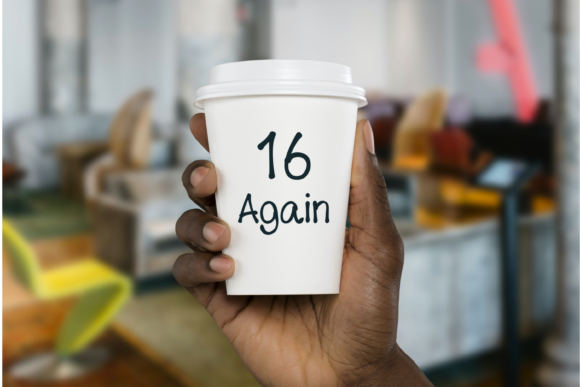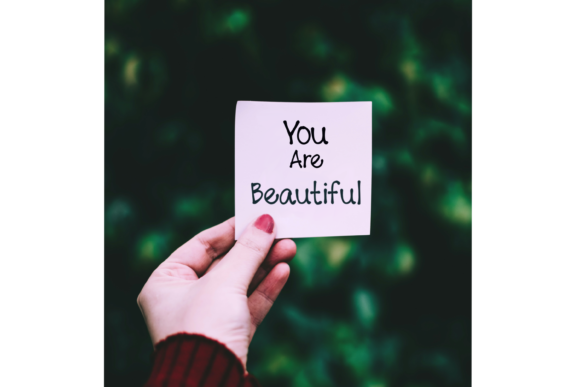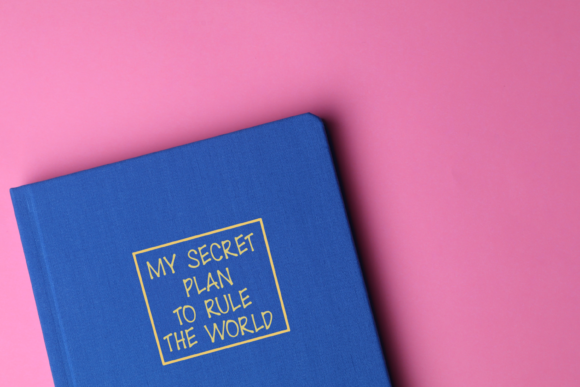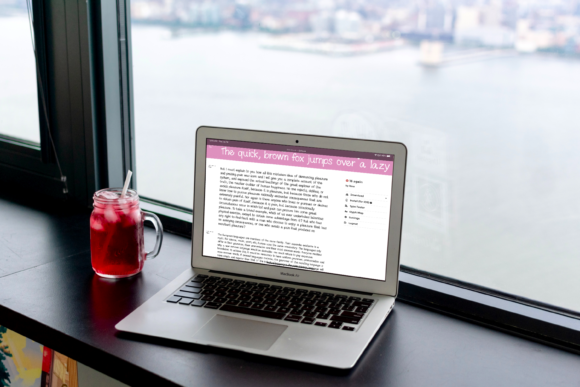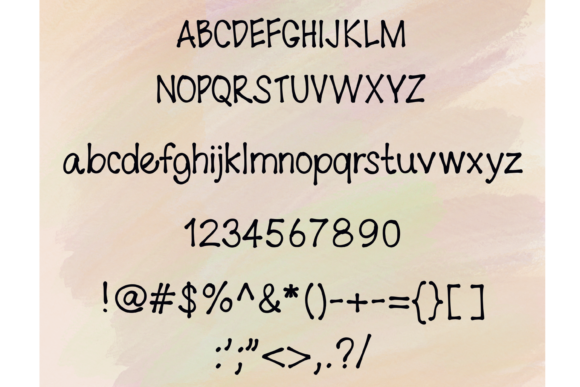
Timeless Charm: Uncovering the Beauty of 16 Again Font
You know that moment when you stumble upon the perfect font to bring your design to life? It’s like a spark of creativity ignites, and everything falls into place. For many designers, that moment came when they discovered 16 Again Font – a charming, handwritten font that captures the essence of nostalgia and simplicity.
Designed to evoke the authentic feel of chalkboard quotes and teaching materials, 16 Again Font is the perfect addition to any design project. Its cute and simple lettering adds a personal touch, making it ideal for various applications, from educational materials to creative quotes.
For designers, 16 Again Font is a valuable asset, offering a unique and timeless look that can elevate any design. Whether you’re creating a chalkboard-style graphic or a teaching resource, this font is sure to bring a touch of warmth and personality to your work.
16 Again Font Key Features
- Font Family: 16 Again Font is a sans-serif typeface designed to evoke a sense of nostalgia and playfulness.
- Unique Characteristics: Features a unique blend of rounded and geometric shapes, giving it a distinctive and eye-catching appearance.
Designer Review: 16 Again Font
As a designer, I was intrigued by the nostalgic charm of the “16 Again Font”. ✨ The font’s retro aesthetic immediately caught my attention, and I was excited to dive in and see what it had to offer.
- ✨ The font’s bold and playful personality makes it perfect for creating attention-grabbing headlines and titles.
- ✨ The font’s nostalgic feel is sure to evoke memories of the past, making it a great choice for retro-themed projects or designs that require a touch of nostalgia.
- ✨ The font’s versatility allows it to be used in a variety of contexts, from digital design to print media.
- ⚠️ The font may be too bold and overwhelming for certain types of designs, such as body text or small print.
- ⚠️ The font’s retro aesthetic may not be to everyone’s taste, and may not be suitable for projects that require a more modern or sleek look.
Overall, I think the “16 Again Font” is a great choice for designers who want to add a touch of nostalgia and personality to their designs. While it may not be suitable for every project, it’s definitely worth considering for designs that require a bold and playful look.
Tips for Getting the Most Out of “16 Again Font”
For best results, use “16 Again Font” in bold or italic styles to add emphasis to your text.
Experiment with different font sizes and colors to create a unique and eye-catching design.
“16 Again Font” is ideal for:
- Music festival or concert event promotions
- Youth-oriented marketing campaigns
- Music or art-inspired designs